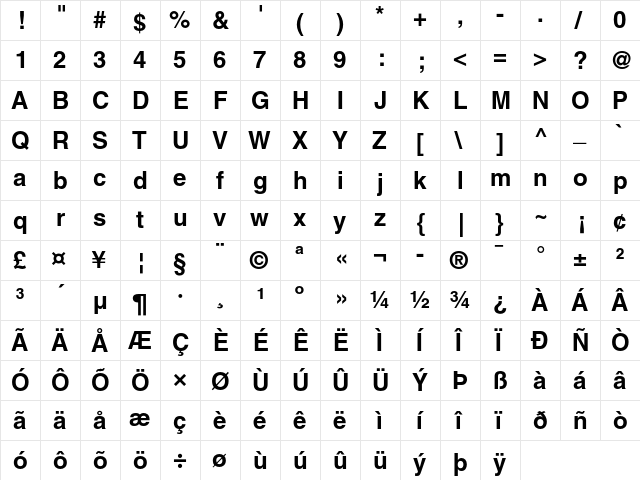
Helvetica Bold
Design Context for Helvetica Typeface
Helvetica takes a measured approach to typography — its balanced proportions and neutral character make it a reliable workhorse for both digital and print work. Its bold stroke weight gives it real presence on the page.
Pro Tip: Use Helvetica in both headline and body roles to test its range before committing to a single application.